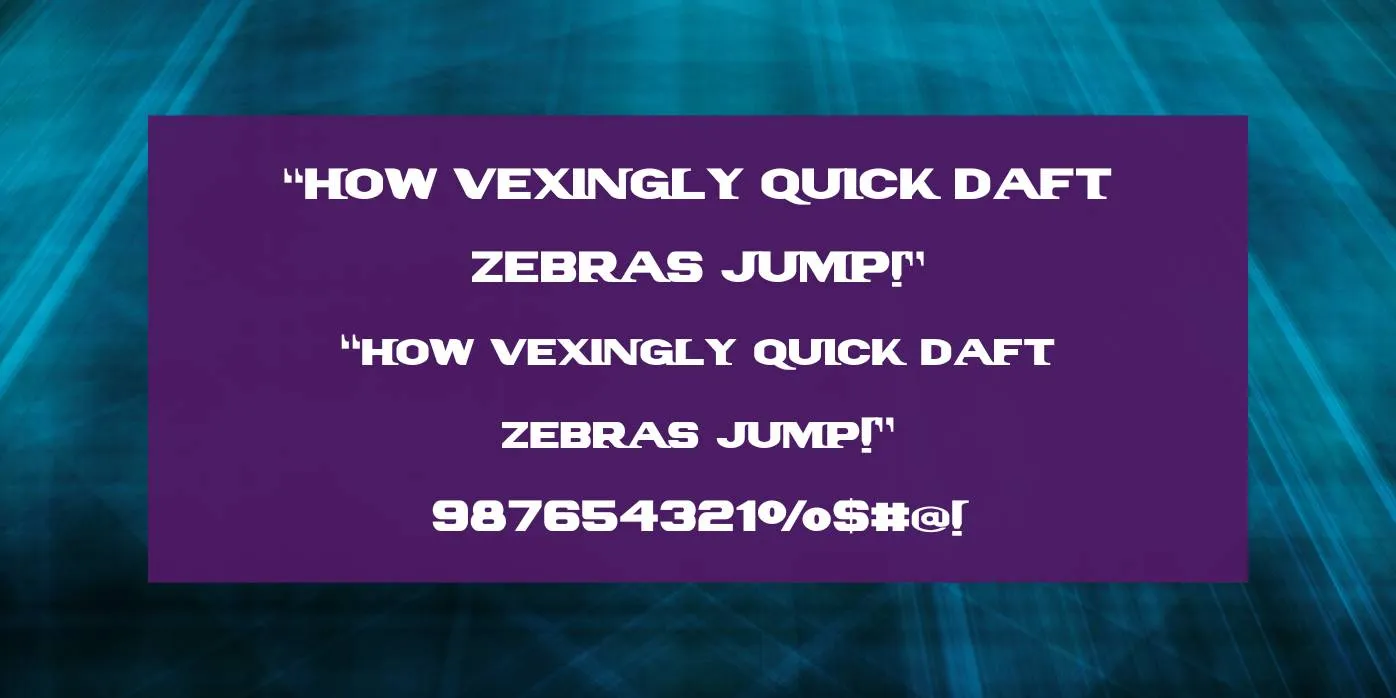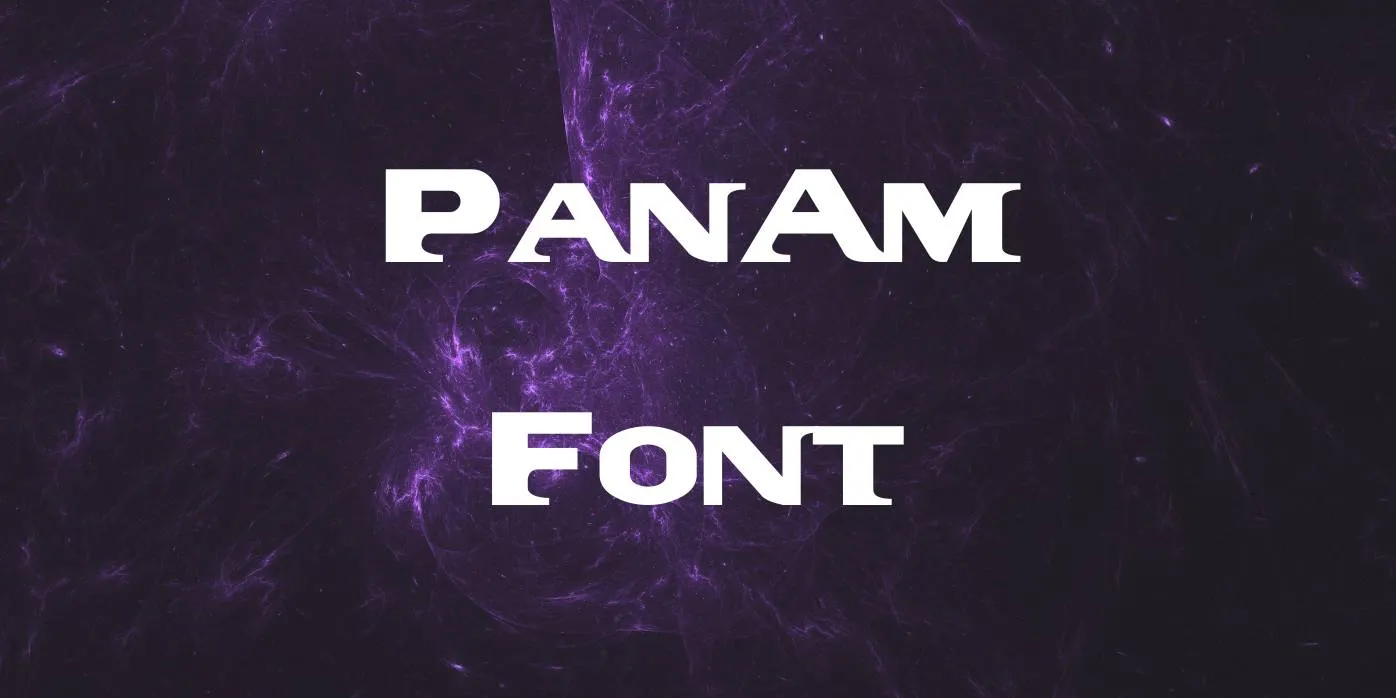
PanAm Font
GemFonts designed this typeface. PanAm Font is a techno font and the characters of this typeface are stylish, bold, and classic. This typeface comes in Truetype and OpenType format. This typeface also supports an online generator tool that converts any style of a font into this texture and as this is an online process so there is no need to download any file for this process.
The font that is best for pairing with this typeface is aquire font. This pair has stunning beauty and it has the flexibility to fit in every type of project and design.